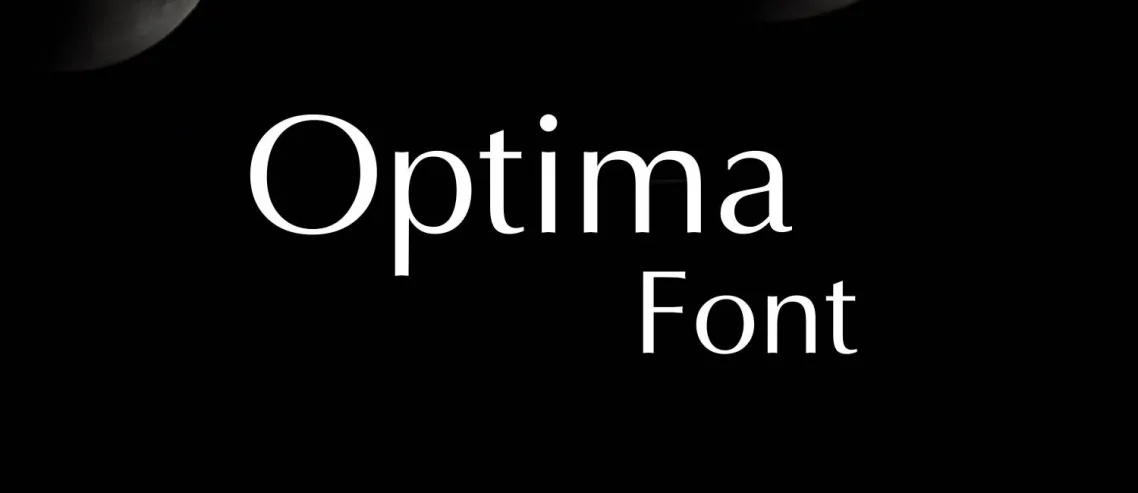
The Optima font was created by Hermann Zapf in 1958. It was influenced by the Roman capital letters found on Marcus Aurelius’ tomb, but Zapf made significant changes to their shapes. The outcome is a design that combines both modern and classical elements.
View of Optima Font
Optima Font Info
| Name | Optima Font |
| Designer | Hermann Zapf |
| Style | Sans Serif |